I have always been fascinated by fonts used in horror movie posters. There is something about the way they are able to capture the essence of the film in such a simple way.
The use of different fonts can also convey different messages about the film. For example, a font that is used for a slasher film might be different than the font used for a psychological horror film.
One of the things that I find most interesting about scary horror movie fonts is the way that they are able to evoke a sense of fear in the viewer. Even if the viewer does not know anything about the film, the font can still convey a sense of dread. This is something that I think is essential for a good horror film. If the viewer does not feel scared, then the film is not doing its job.
There are a few different fonts that are commonly used in horror movie posters. I think that the use of different fonts in horror posters is great that’s why we collected some amazing Best Scary Horror Movie Fonts.
These handpicked fonts are perfect for creating horror movie poster designs, film titles, end credits, and more. You can also use these fonts for many other types of designs.
Khila – Scary Brush Font
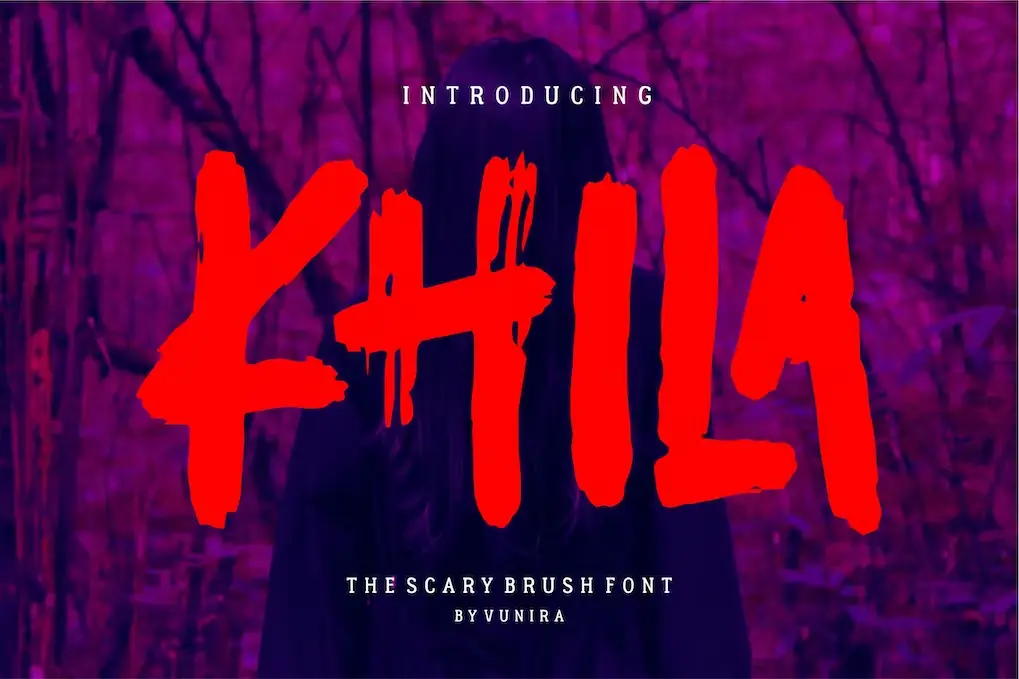
This scary brush font has a calligraphy style and looks amazing on horror movie posters, in scary titles, and in Halloween designs.
Exorcist – Devil Typeface for Movies
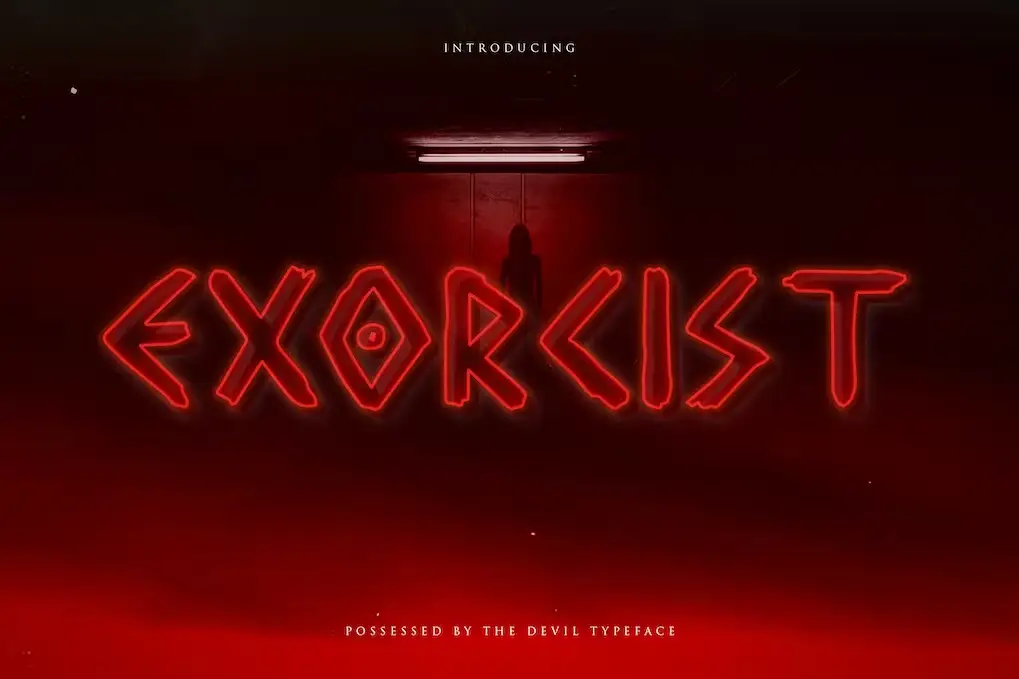
Exorcist is possessed by the devil typeface. After reading the name of this font the first thing that comes to my mind is The Exorcist movie it’s one scariest movie I ever watched. This font really gives me a scary vibe.
Stranger Creature – Horror Thriller Movie Font
STRANGER CREATURE is a display font that has a horror theme. Inspiration for this font is taken from a horror thriller movie. This font is ideal for projects featuring Halloween, Horror, Thriller, or Scary themes.
Nightscary – Horror and Scary Movie Font
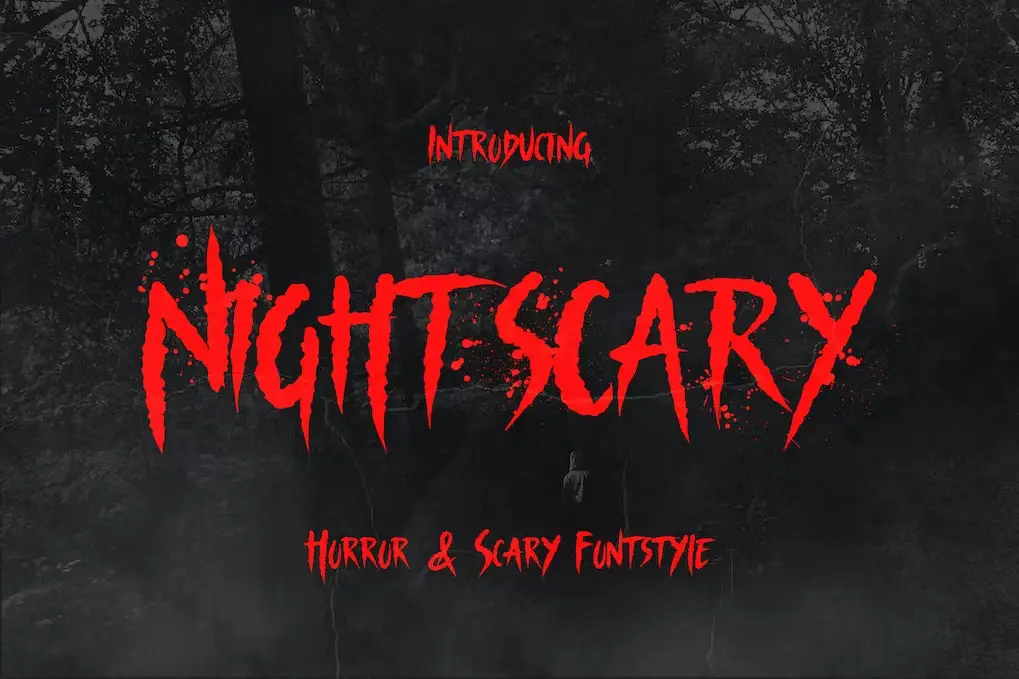
Nightscary is a thriller and violent handwritten font that is for great Halloween and movie poster designs. This font gives the feel of a knife cut with bold splatters that give your design an extra spook, fright, and feel.
Horror – Bold Scary Movie Font
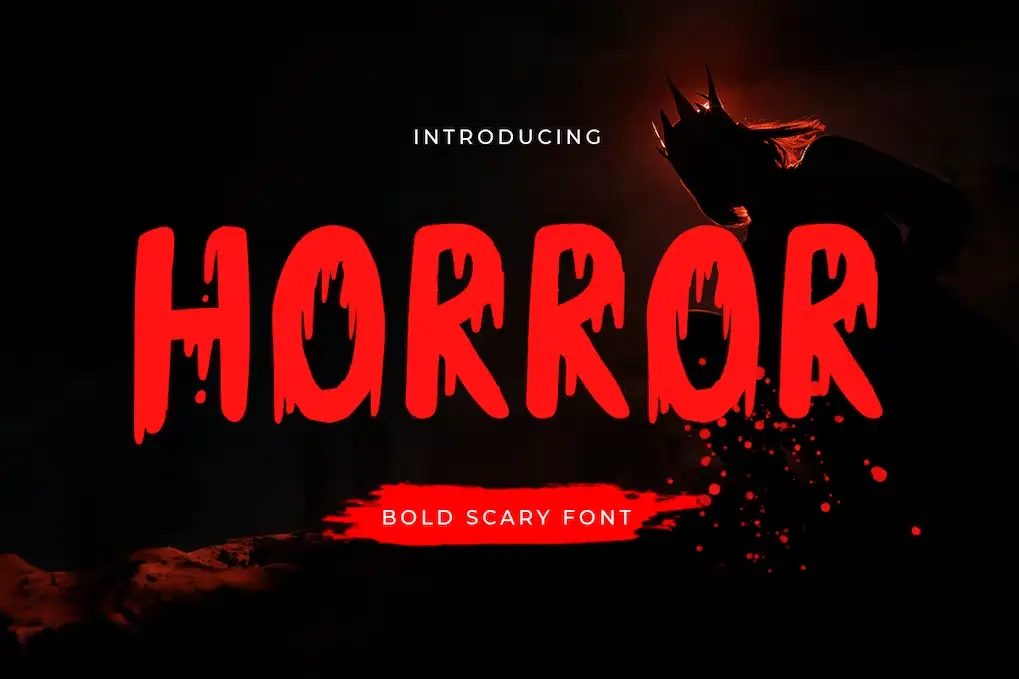
Horror bold scary font comes with a blood dripping effect that gives this font a spooky feel. It’s a perfect font for creating horror movie posters and Halloween flyers and poster templates.
Cinema Macabre Horror Fonts
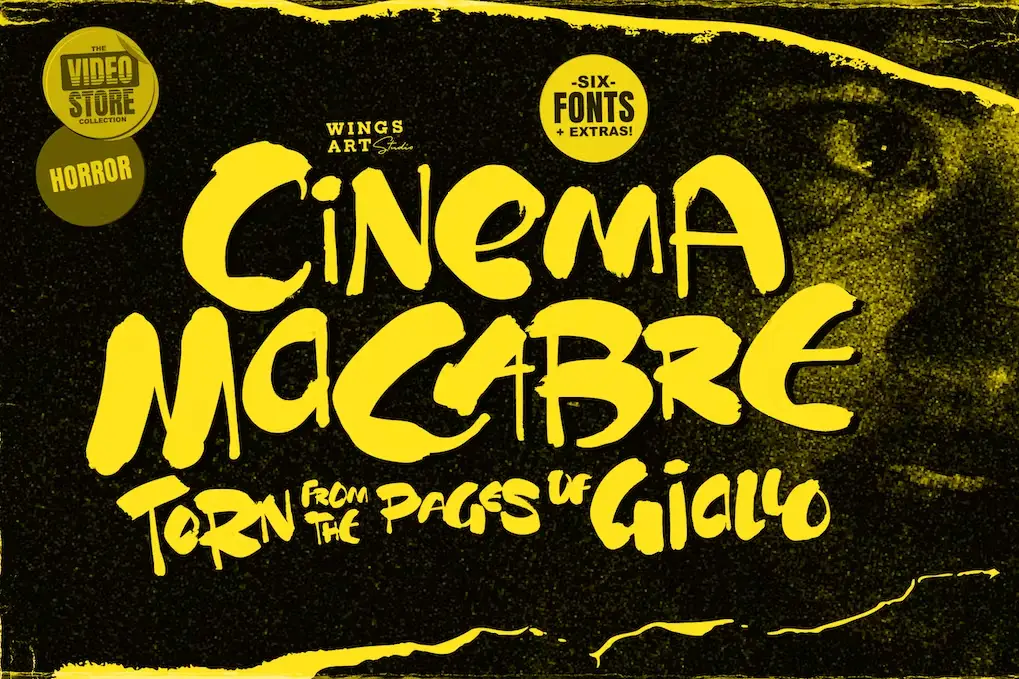
There are six fonts in the Cinema Macabre family, each with its own set of uppercase and lowercase characters, numbers, punctuation, and languages.
Yokai – Scary Rough Brush Font (Free)
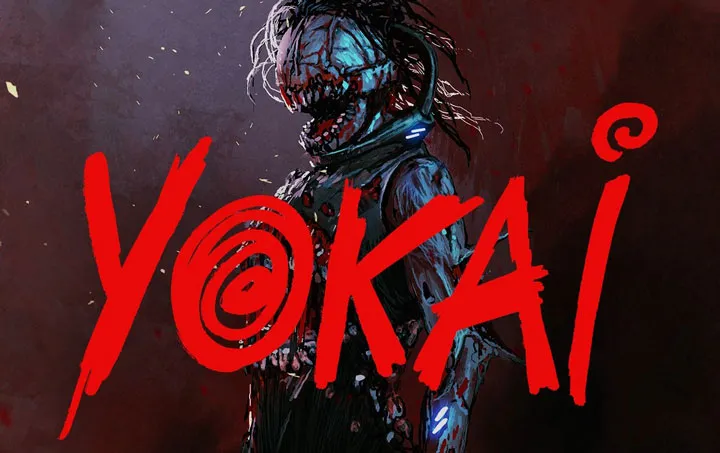
Yokai is a free rough brush font with alternate letters that can be toggled via Caps Lock. It is free for both personal and commercial use.
Okami – Handdrawn Horror Movie Font
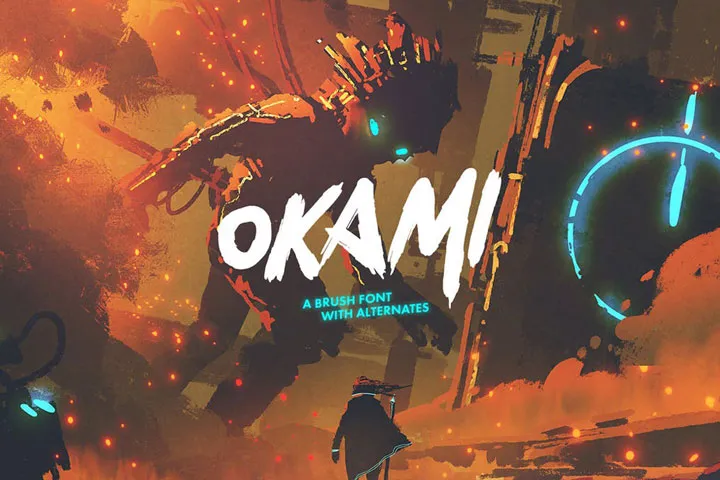
Okami is a hand-drawn brush font with rough and bold letters. It’s great for creating titles for creative projects such as movie posters, video games, or even Halloween banners.
Anima Regular – Thriller Movie Font
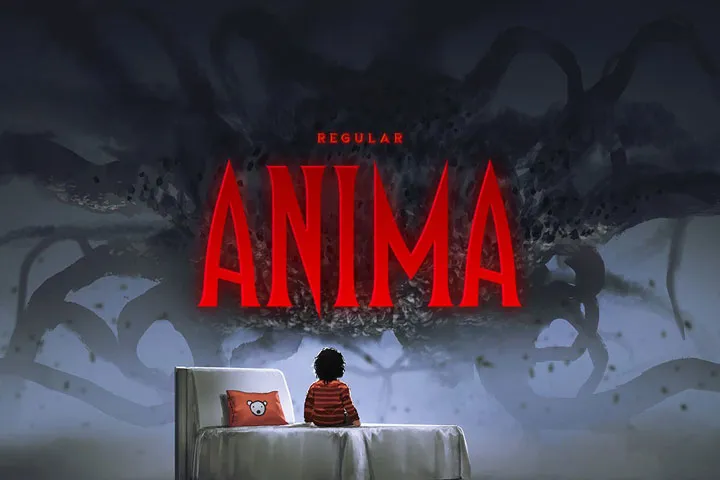
Anima is a tall and sharp font and comes with an evil look that you see in horror movies. Because this evil looks it’s one of the best fonts on our list.
Jacmax – Horror Style Movie Font
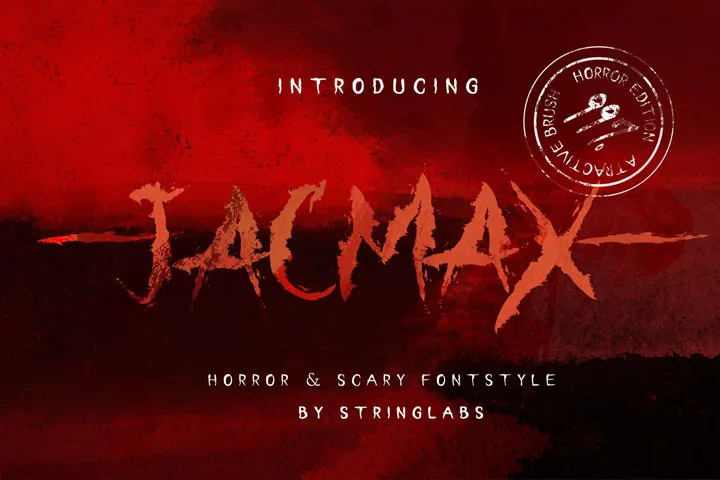
It is a display font with horror and scary style. Jacmax has a unique design that is combined with a decorative horror style.
Ghoulish – Vintage Horror Movie Font (Free)
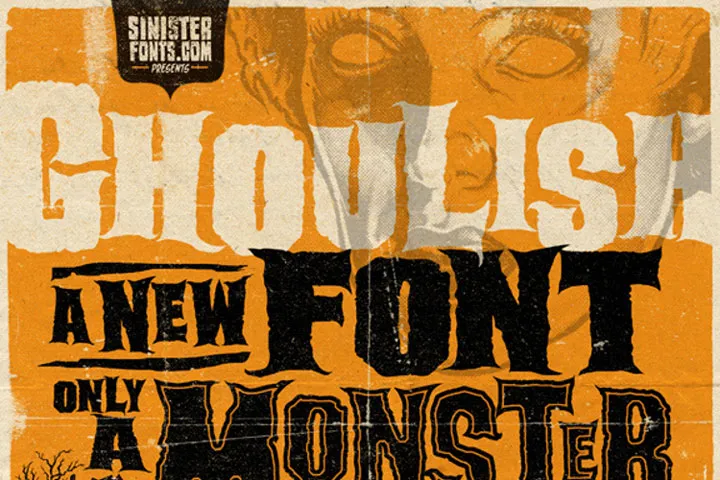
Ghoulish is a font that is perfect for creating vintage-style spooky designs. It’s free for personal and commercial use.
Monolith Typeface – Chipped Movie Font
Monolith Typeface font comes with a chipped design that gives it a very unique look. You can use this font to create scary animated movie tiles, poster designs, and video games.
Mukadua Typeface – Dark Serif Movie Font (Free)
Mukadua is a serif font type that looks great in dark, horror, and scary designs. It also has open-type features like stylistic alternates and ligatures.
Scary Things – Creepy Serif Movie Font
It’s a perfect font to add scary vibes to your designs. This font is suitable for poster movies especially thriller & horror movies.
Witch – Wicked Typeface Font
Witch is a strange serif display typeface ideal for horror titles.
Butter Haunted Display Font (Free)
Butter Haunted is cool horror font. You can use this font for every horror moment like Halloween, Dark Clothing, Horror Movie Poster, etc